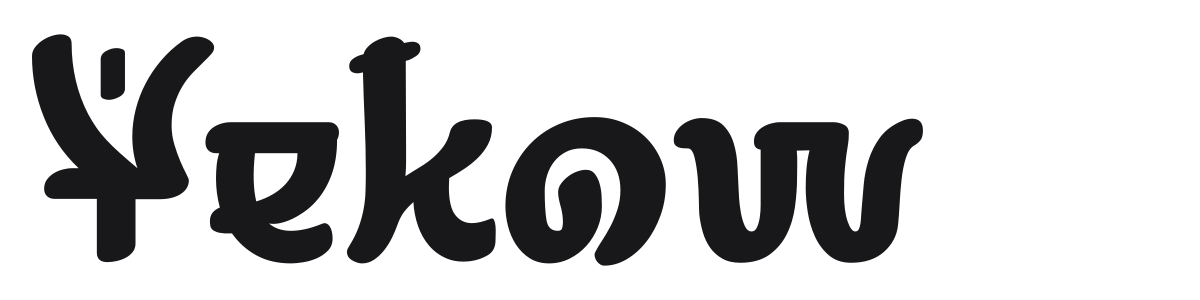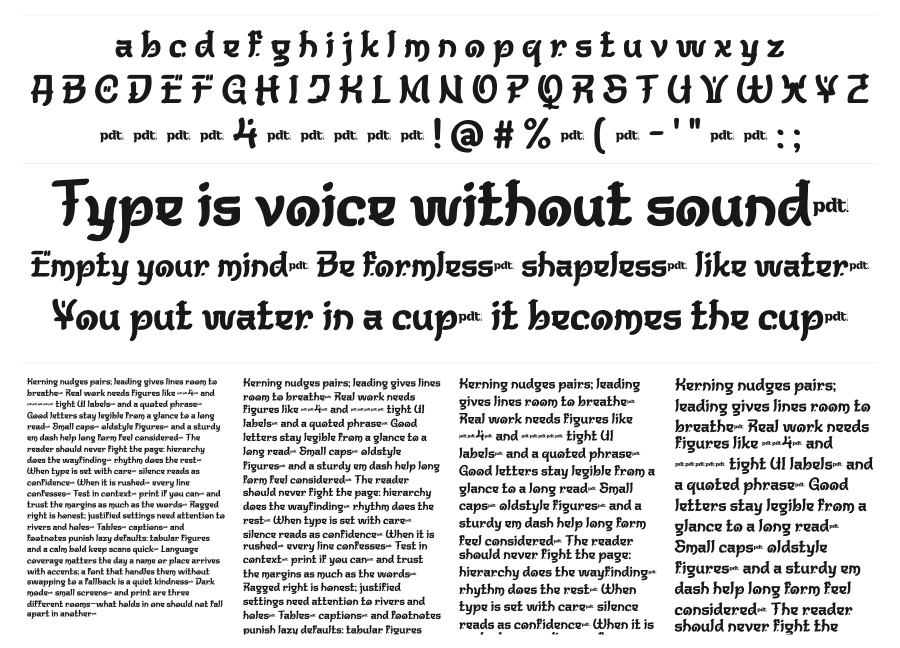
Yekow
Yekow is a bold Latin display font built around a Japanese-style aesthetic, translating the structural logic of kanji strokes into Western characters. Each letter carries heavy, drooping terminals and thick organic strokes that read as a genuine fusion rather than a surface-level imitation. The result is a typeface with strong personality suited to titles, branding, and anything that needs a retro East Asian edge.